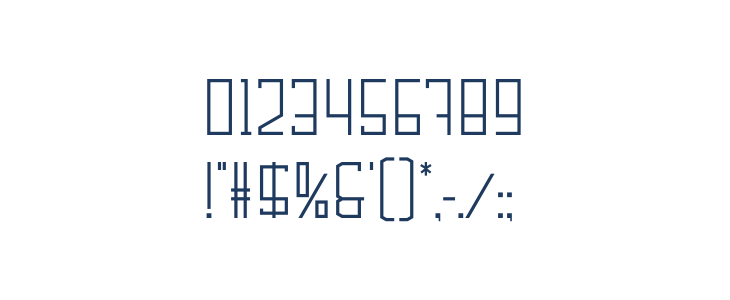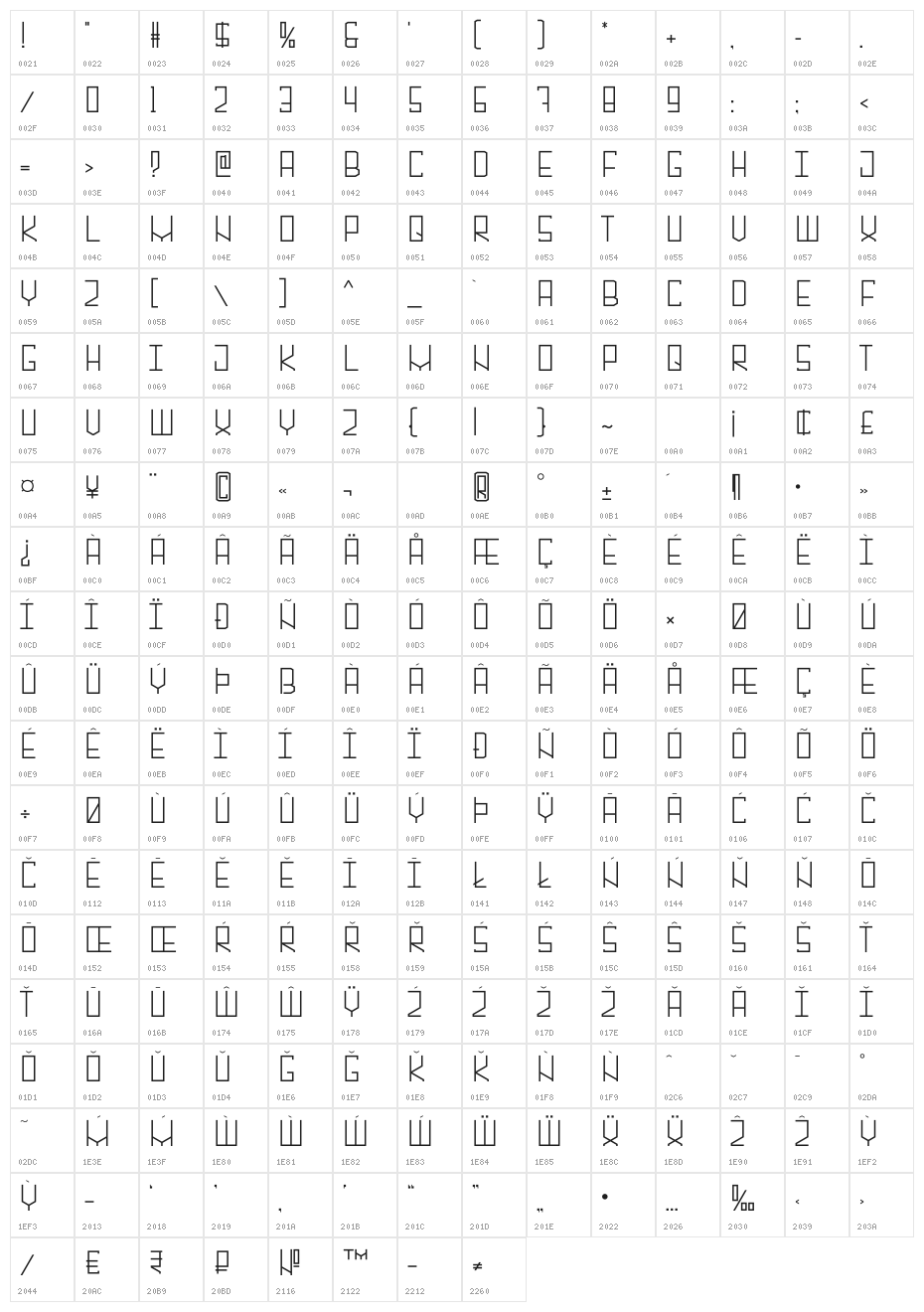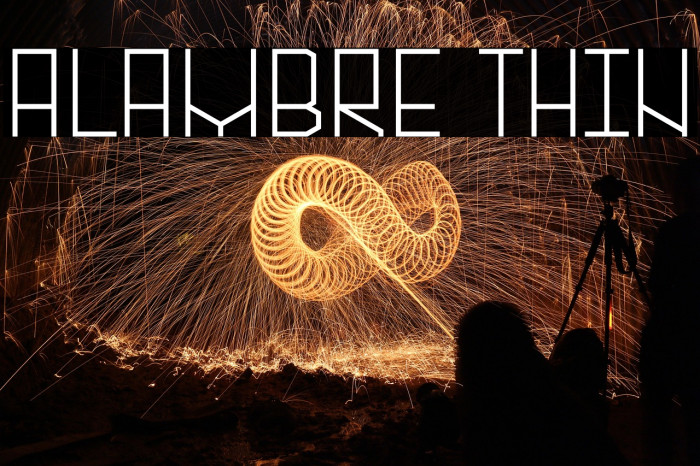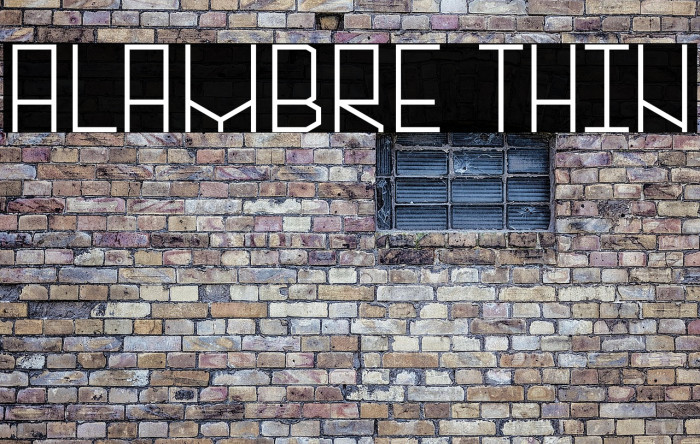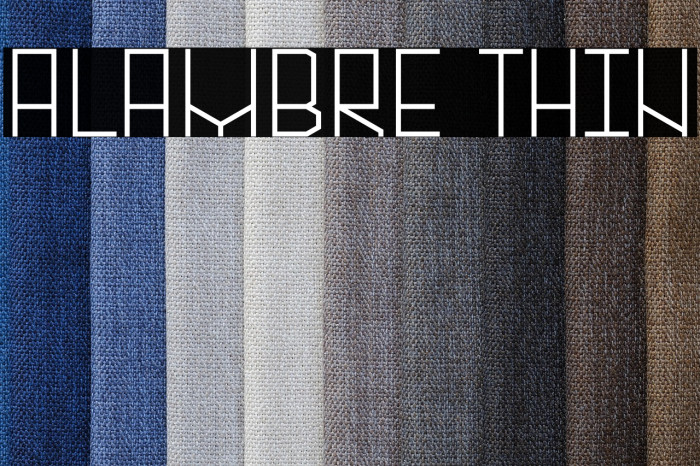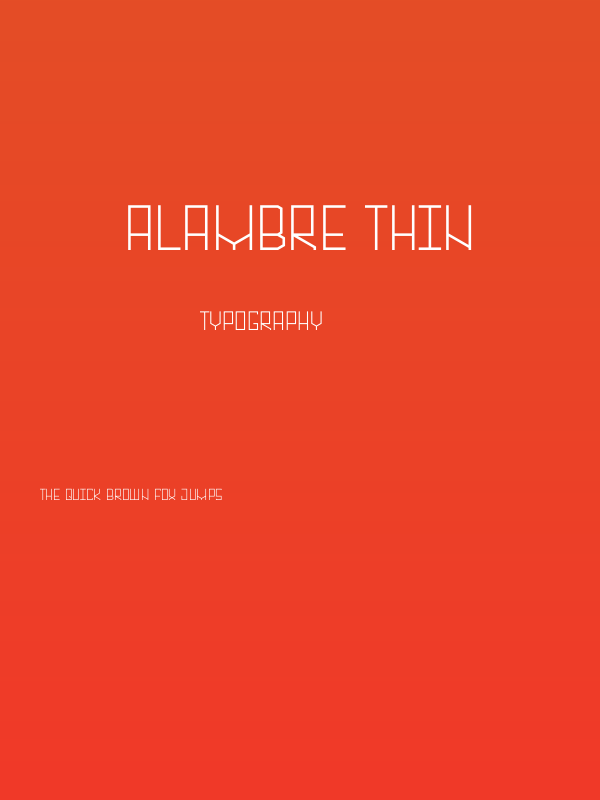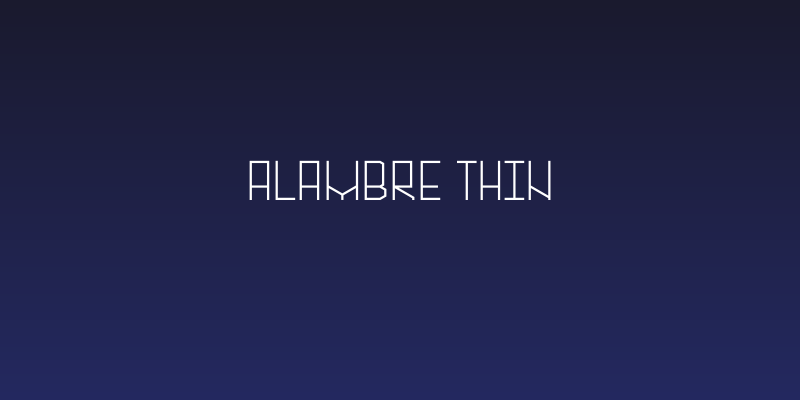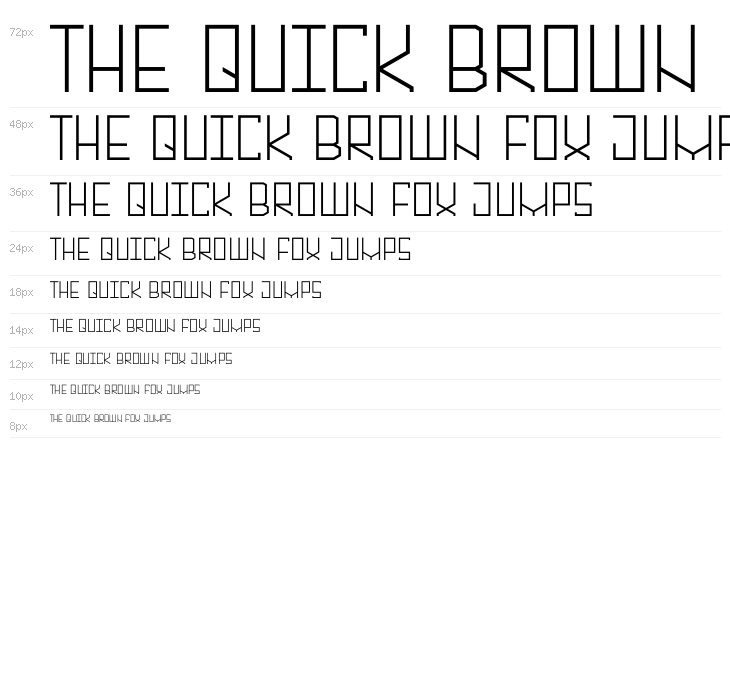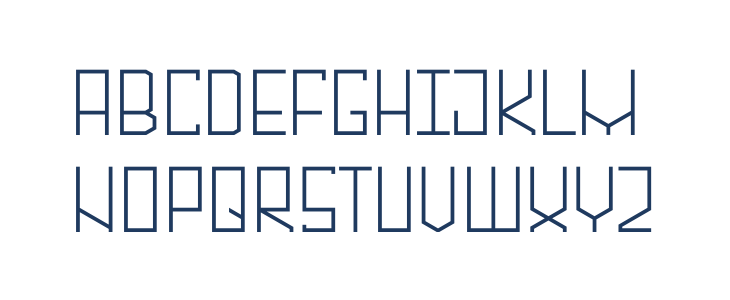
Alambre Thin Font
Alambre Thin Description
This font features a geometric and angular design with a wireframe-like appearance. Each character is constructed with straight lines and sharp angles, creating a modern and industrial feel. The uppercase and lowercase letters maintain a consistent height, and the numerals are designed to match the overall aesthetic. Special characters are included, complementing the font's unique style. The thin strokes give it a delicate yet structured look, making it suitable for creative and contemporary projects.
Proposed ProjectsIdeal for modern branding, tech-related designs, architectural projects, and innovative product packaging.